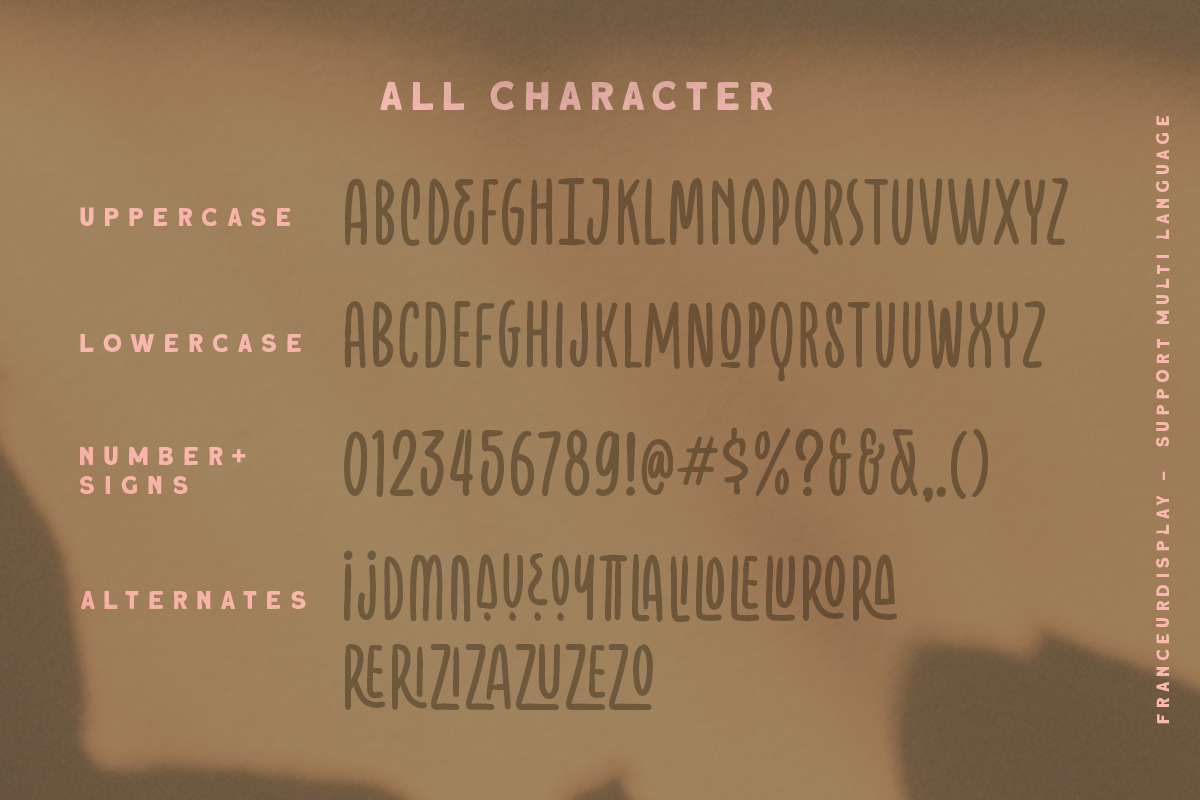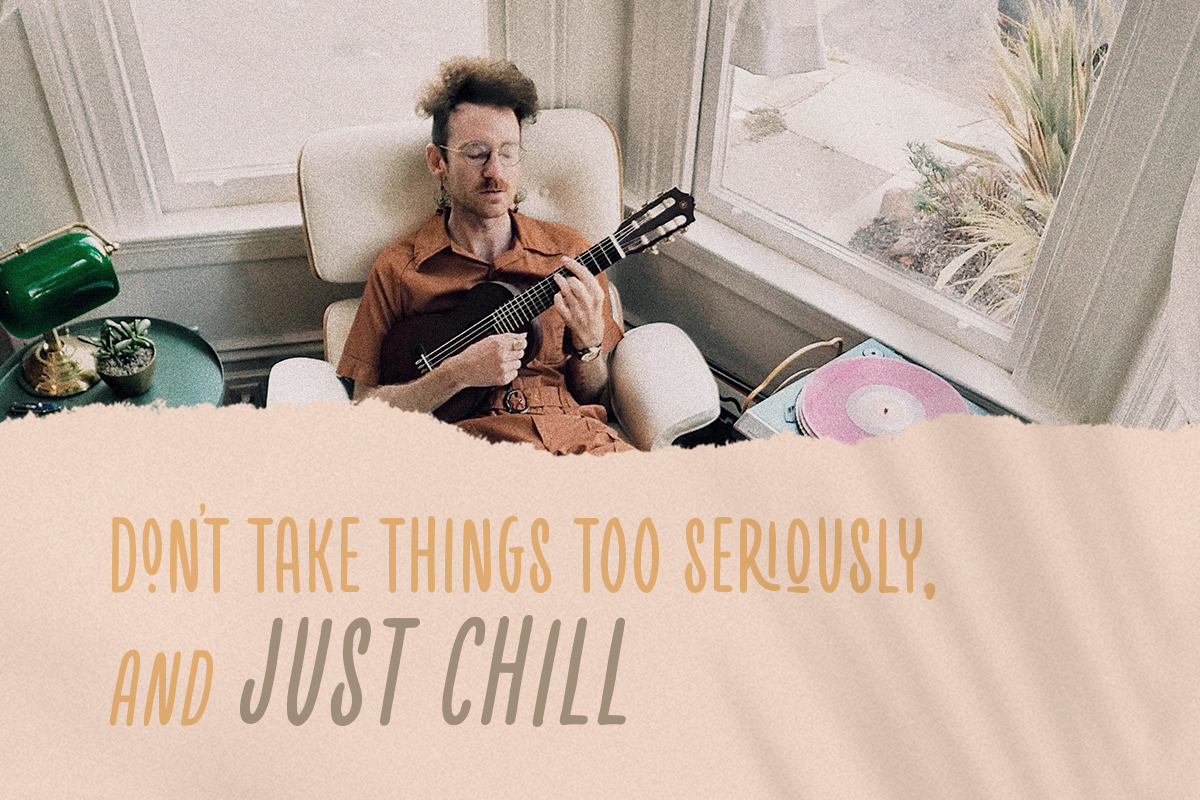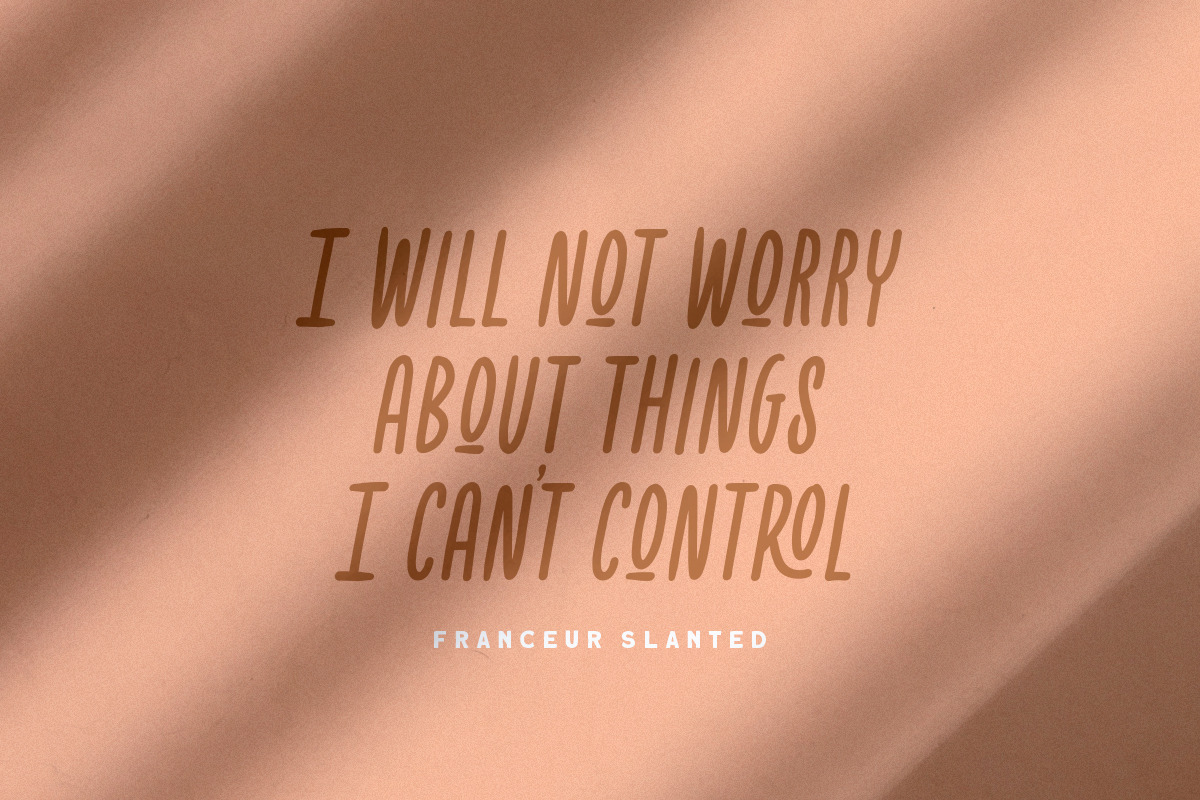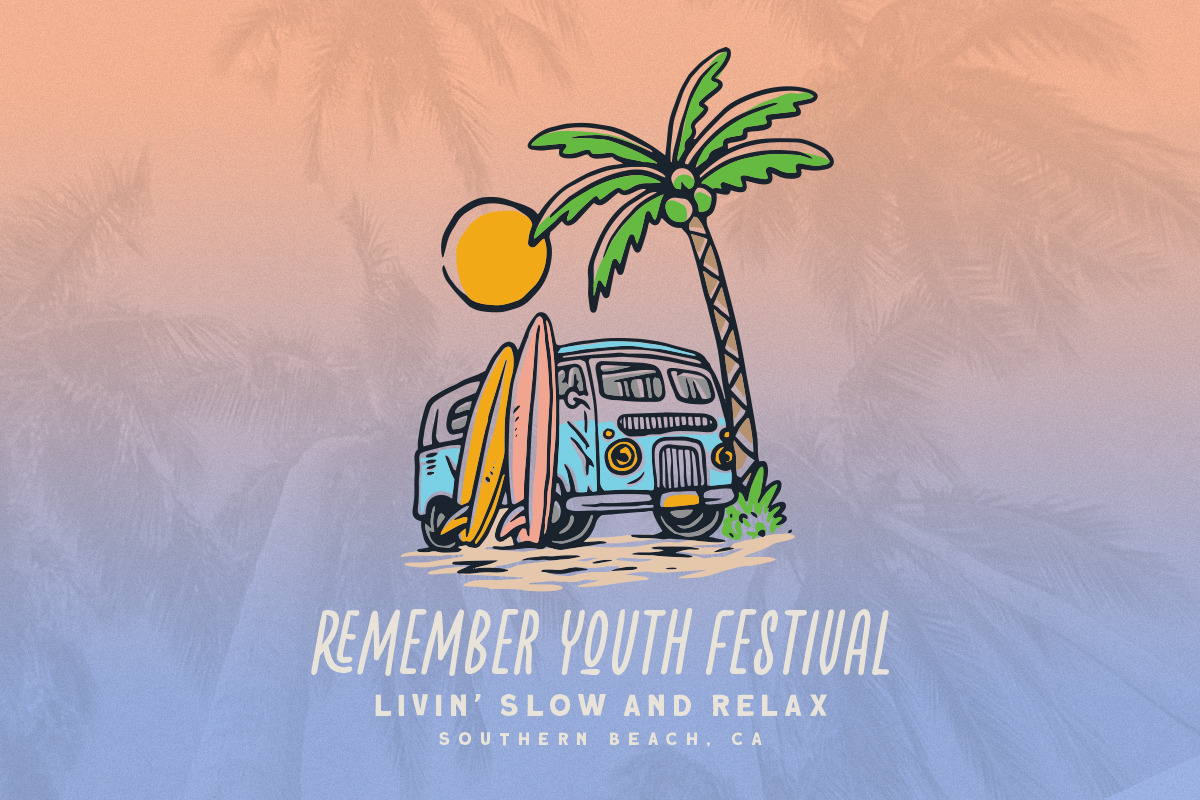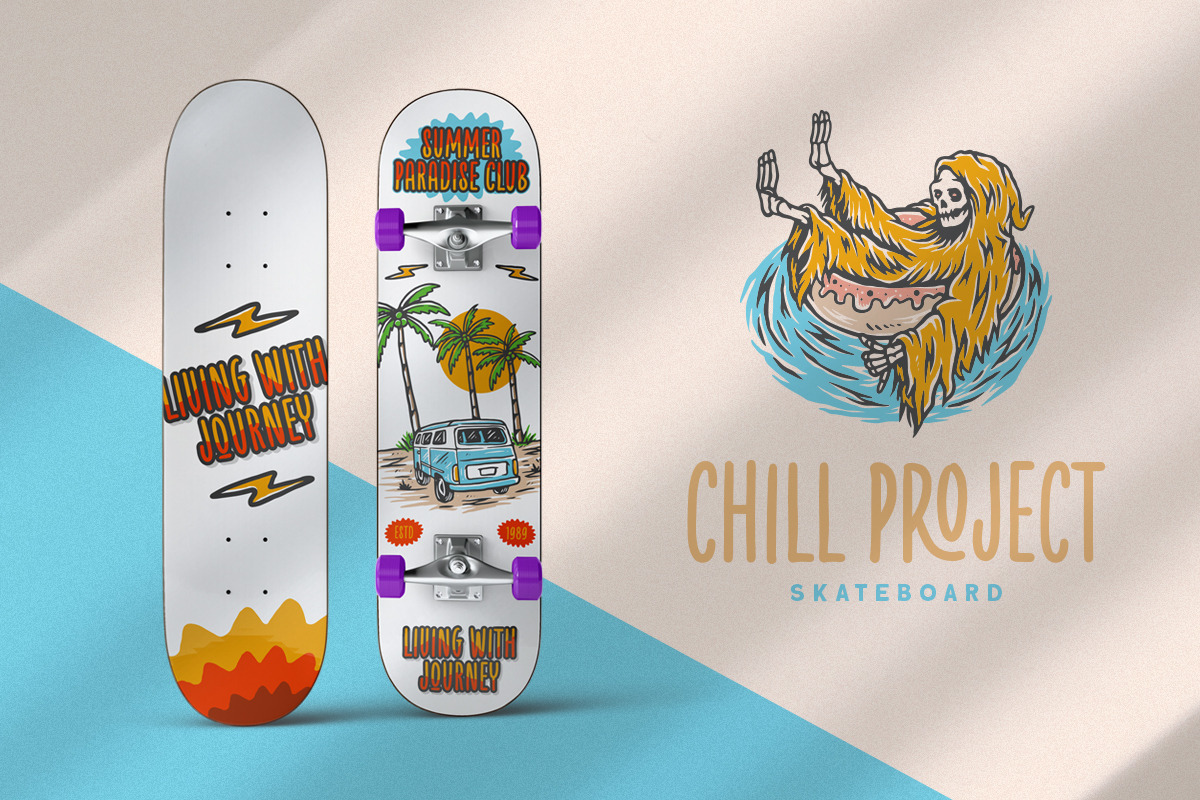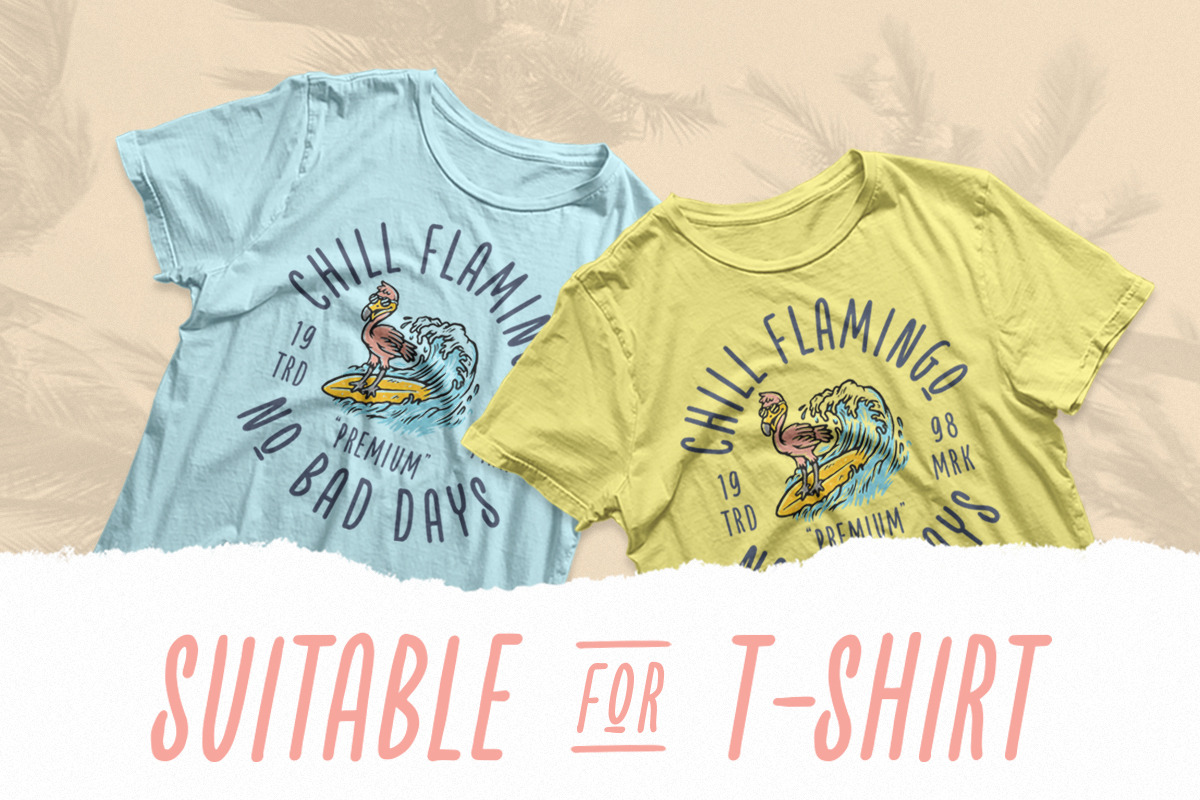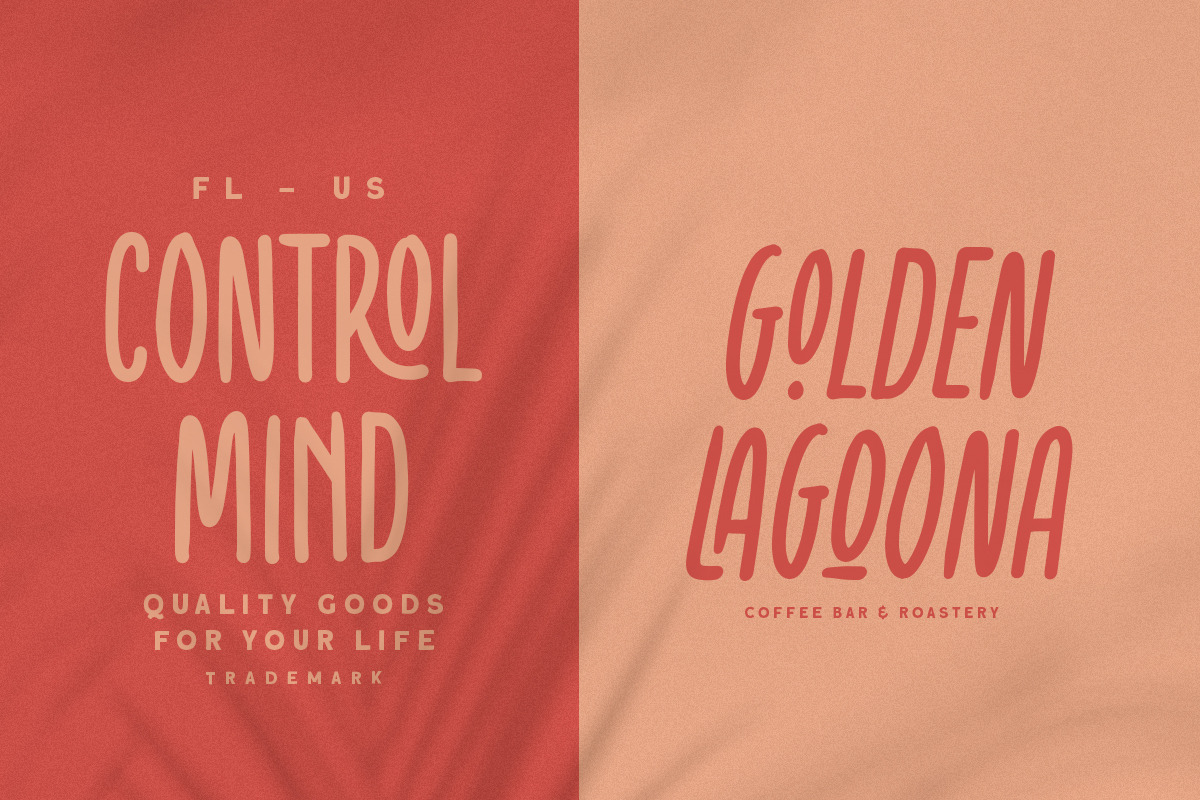
Franceur - Condensed Typeface
Introducing, Franceur. A condensed display typeface with natural hand writing feel. This font perfectly made to be applied especially in logo, and the other various formal forms such as invitations, labels, magazines, books, greeting / wedding cards, packaging, fashion, make up, stationery, novels, labels or any type of advertising purpose.
uppercase & lowercase (alternates)
numbers and punctuation
Ligatures and alternates
- uppercase & lowercase (alternates)
- numbers and punctuation
- Ligatures and alternates
- multilingual
- Franceur Regular
- Franceur Slanted
- Franceur Outline
- Franceur Outline Slanted